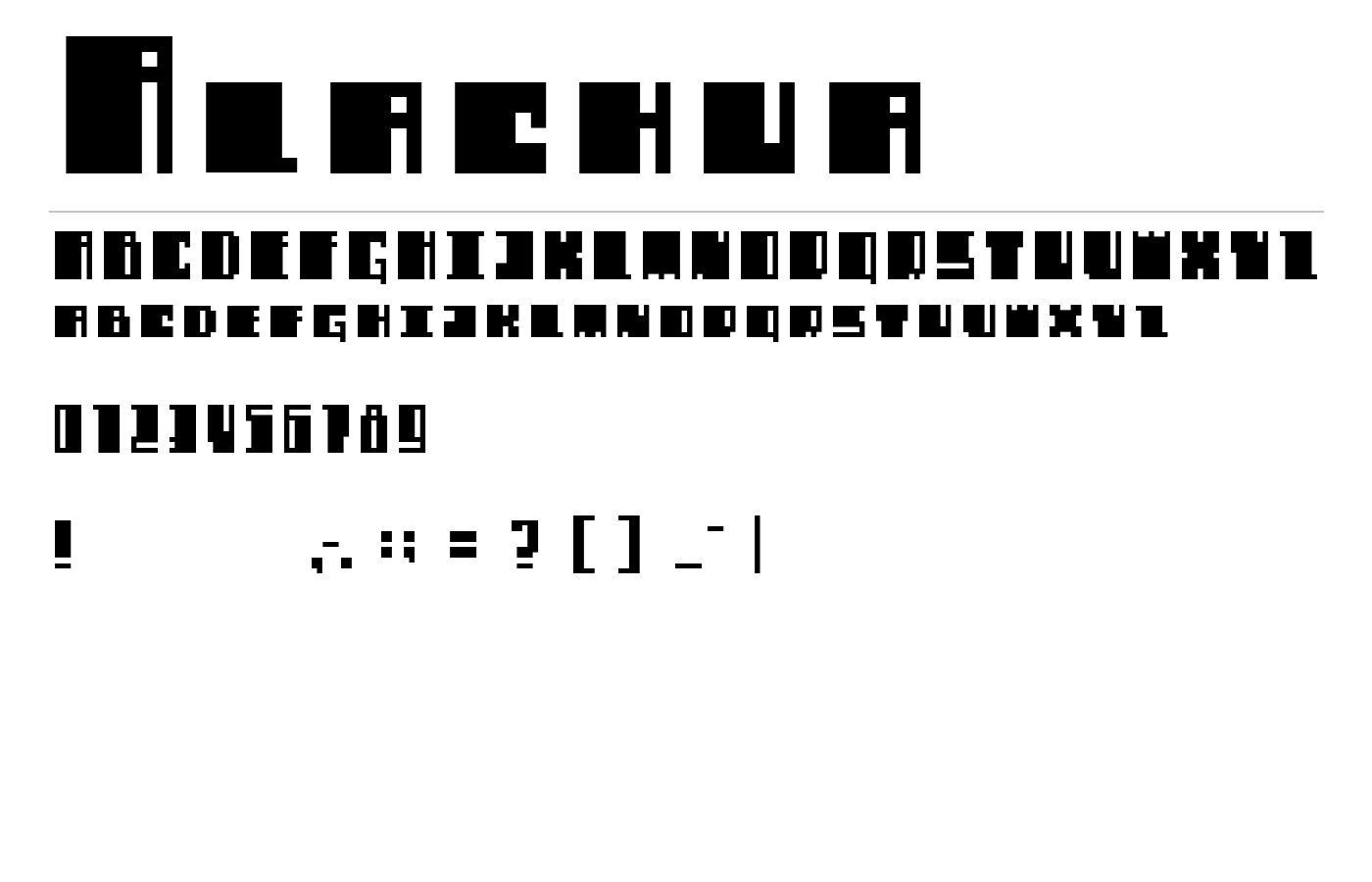
Alachua is a bold, blocky sans serif font with a striking geometric and pixelated style, featuring thick, uniform strokes and a condensed width. Its strong, squared letterforms convey a modern, digital, and slightly retro vibe, making it ideal for attention-grabbing headlines, logos, and designs needing a tech-inspired or playful edge. This font works best in display settings where its unique style can stand out without sacrificing readability.
Alachua Font
About Alachua Font